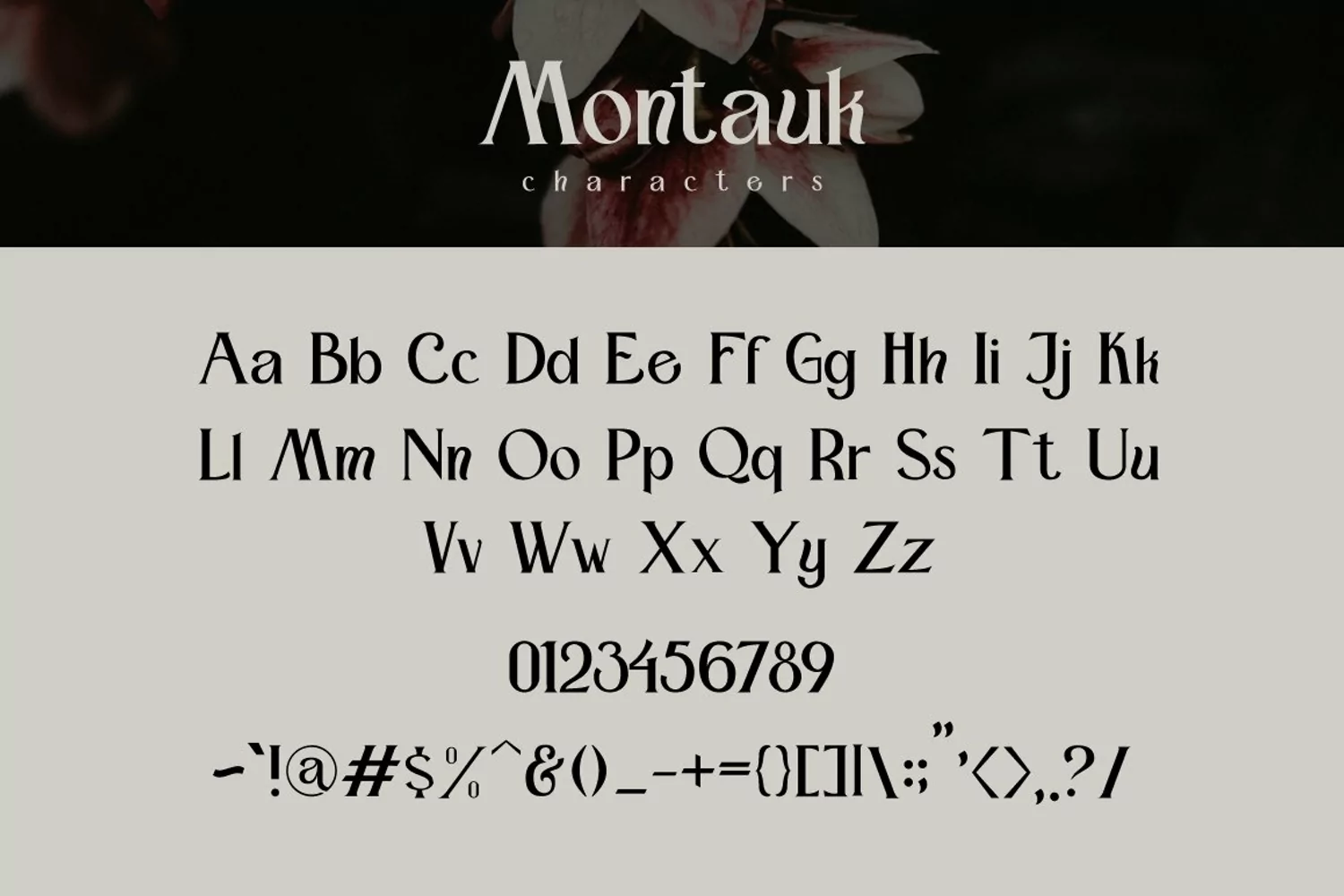
Montauk is a bold modern vintage serif typeface with sweet curves that will make your logo or brand even more stunning and stand out! The Madelyn will be perfect for many projects: fashion, magazines, logo, branding, photography, product packaging, advertisements, etc.